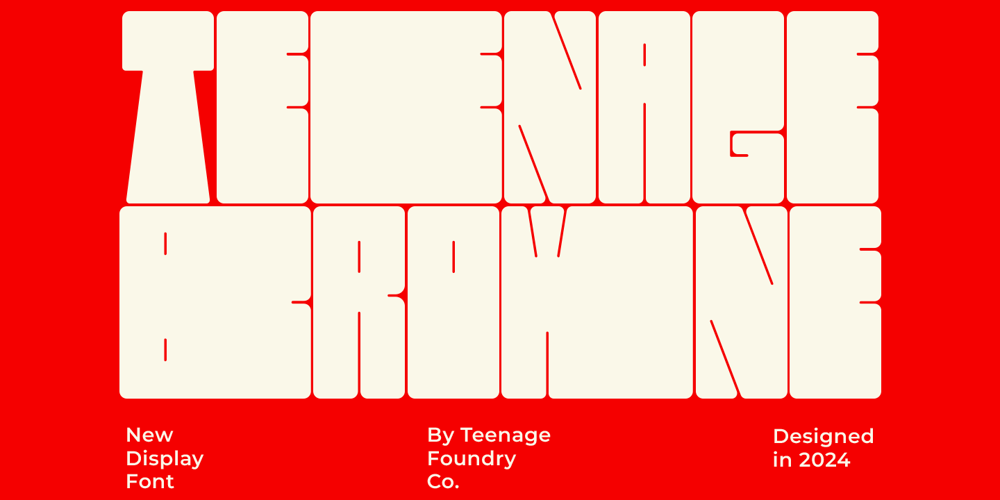
TF Browne Font Family was designed by Miftahul Habib and published by Teenage Foundry. TF Browne contains 1 styles and family package options. Teenage Browne is a bold and stylish display font, with a thicker alternative available in the lowercase letters. This sans-serif font is a versatile option for designers looking to create impactful branding, attention-grabbing logos, striking book covers, and more. Perfect for adding a modern and edgy touch to any design project.Features: Uppercase, Lowercase, Numeral, Punctuation & Multilingual.For any questions please contact me 🙂Thanks!